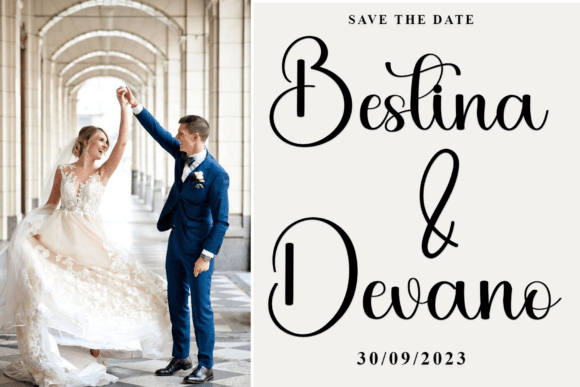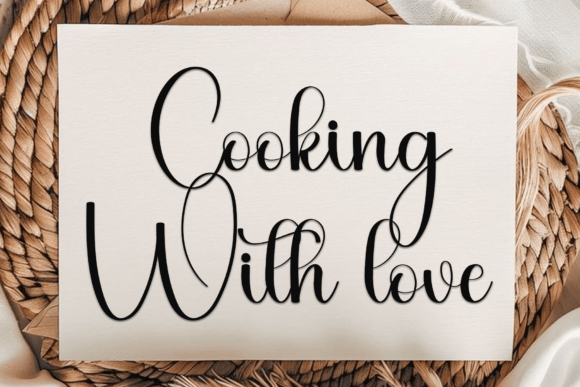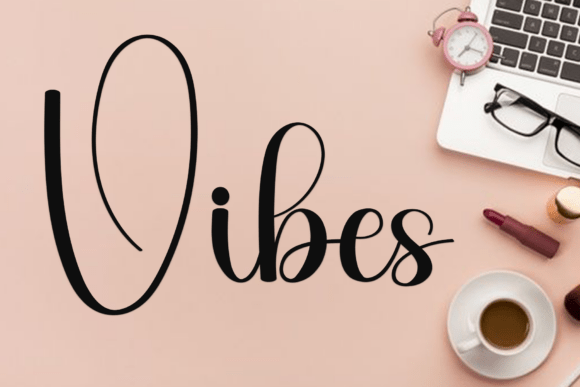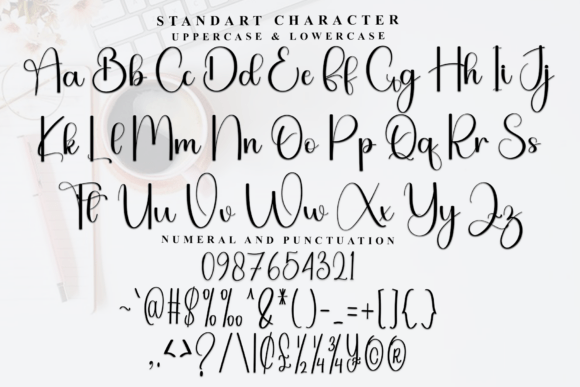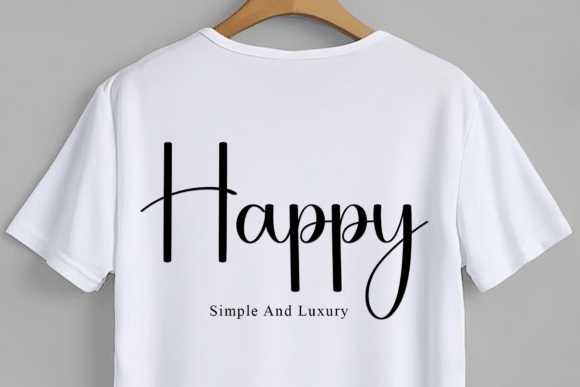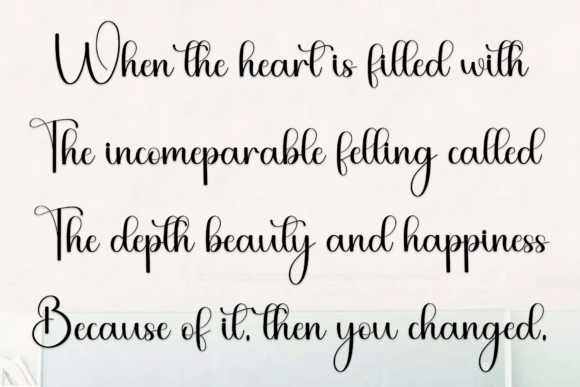
Introducing Digital: The Perfect Font for Creative Projects
In the world of digital design, fonts play a crucial role in conveying the tone and personality of a project. If you’re looking for a font that exudes warmth, friendliness, and approachability, look no further than Digital. This casual and creative font is perfect for personal projects, invitations, social media graphics, and more.
The Characteristics of Digital Font
Digital font is characterized by its round, playful strokes that create a relaxed and casual feel. The font’s charming, hand-drawn aesthetic adds a fun and unique touch to any design, making it perfect for designers and crafters who want to add a personal touch to their work. The font’s friendly and approachable vibe makes it ideal for projects that require a human touch.
What Makes Digital Font Special?
Perfect for Personal Projects and Designs
Whether you’re working on a personal project, creating invitations for a special occasion, or designing social media graphics, Digital font is the perfect choice. Its casual and creative vibe makes it ideal for:
- Personal blogs and websites
- Invitations and party decorations
- Handmade products and packaging
Why Designers and Crafters Love Digital Font
Designers and crafters love Digital font for its unique and charming aesthetic. The font’s hand-drawn feel adds a personal touch to any design, making it perfect for projects that require a human touch. Additionally, the font’s versatility makes it easy to use in a variety of design applications, from digital design to print design.
Tips for Using Digital Font
Here are some tips for using Digital font in your designs:
- Use Digital font as a headline font to add a playful touch to your design
- Pair Digital font with other fonts to create a unique and interesting contrast
- Use Digital font to add a personal touch to your designs, making them more relatable and engaging
In conclusion, Digital font is a versatile and charming font that is perfect for designers and crafters who want to add a personal touch to their work. Its casual and creative vibe makes it ideal for personal projects, invitations, social media graphics, and more. With its standard PUA Encoded glyphs and compatibility with various application engines, Digital font is easy to use and incorporate into your workflow.